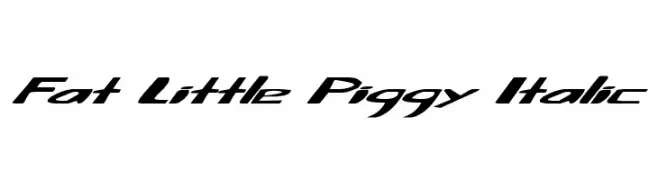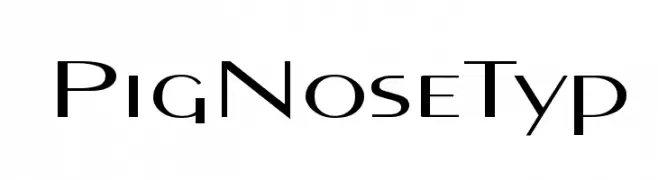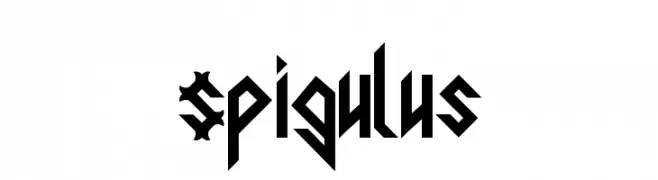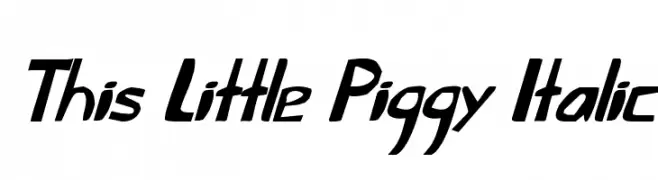
A bold, playful font with geometric and asymmetrical elements.
A playful, hand-drawn font with bold, irregular strokes and a whimsical style.
A bold, angular font with a Gothic and futuristic style.
A bold, italic font with a dynamic and modern style.
A playful, bold font with rounded, hand-drawn characters.
A playful, italic font with bold, hand-drawn characters and a whimsical style.
A playful, hand-drawn font with a condensed and quirky style.
A bold, condensed, and italicized font with a dynamic and modern style.